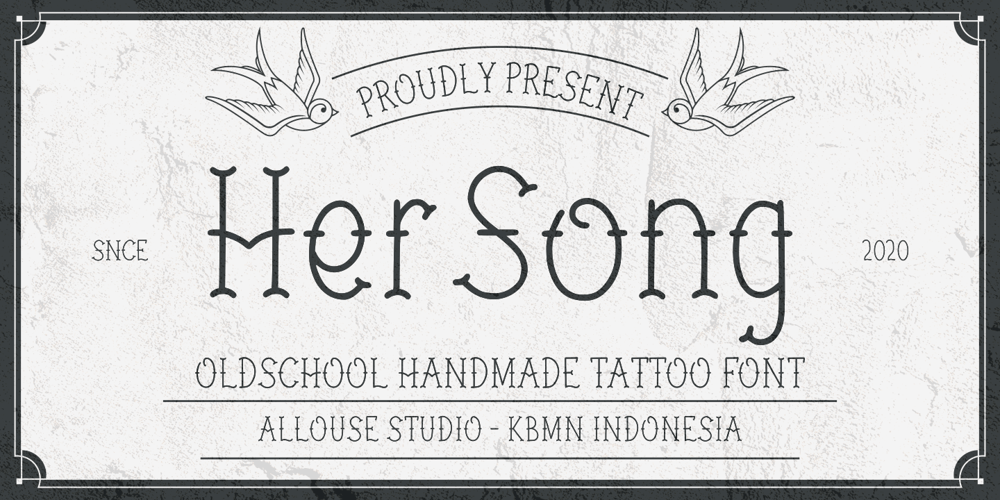
Her Song
Her Song font
Her Song Font Family was designed by Fachrizal Yusuf and published by Allouse Studio. Her Song contains 1 styles and family package options. Proudly Present, Her Song a Oldschool Handmade Tattoo FontHer Song is perfect for product packaging, branding project, megazine, social media, wedding, or just used to express words above the background.Her Song also come with Multi-Lingual Support.Enjoy the font, feel free to comment or feedback, send me PM or email. Thank You!